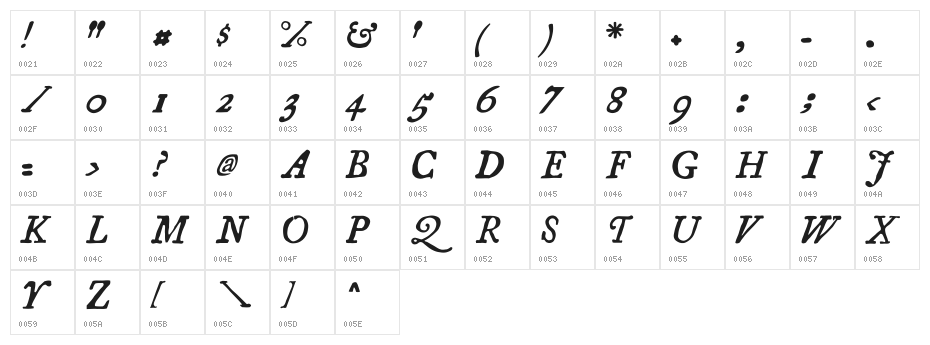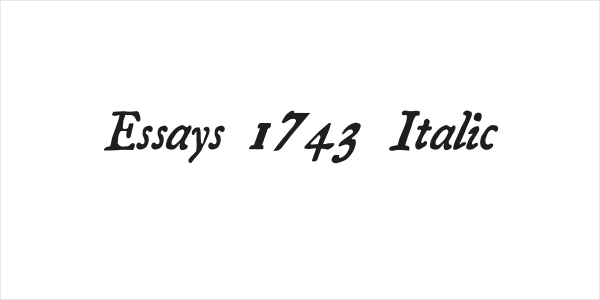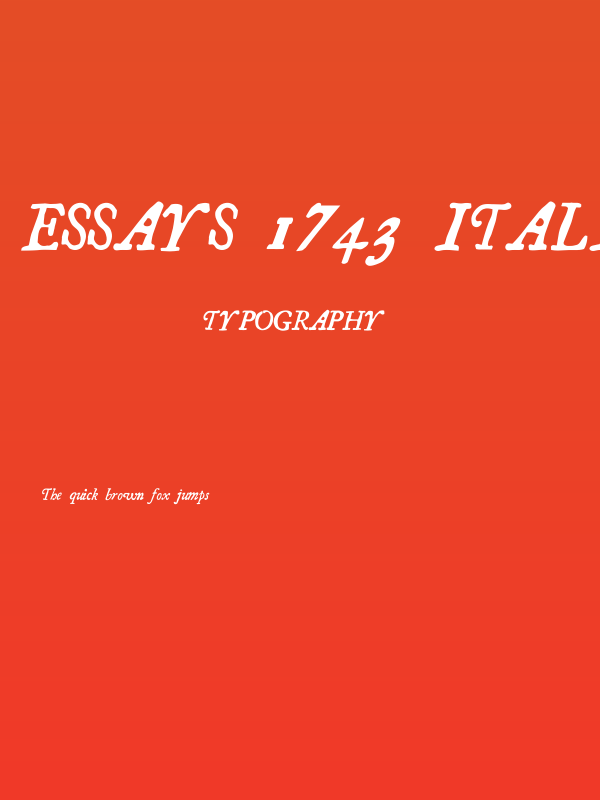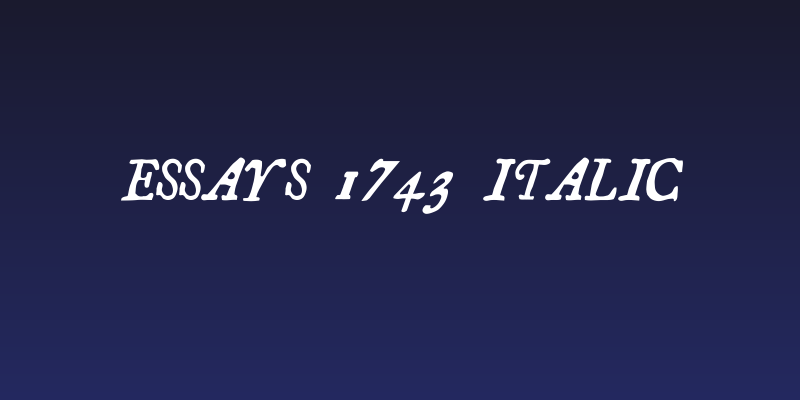
Essays 1743 Italic Font
Essays 1743 Italic Description
This font exhibits a classic and elegant italic style, characterized by its flowing and cursive letterforms. The uppercase letters are bold and slightly slanted, giving a sense of movement and sophistication. The lowercase letters maintain a consistent slant, with smooth curves and a harmonious flow. The numerals are distinct and easily readable, with a slight tilt that matches the overall italic theme. Special characters are well-integrated, maintaining the same stylistic features as the letters and numbers. The font's design is reminiscent of traditional calligraphy, making it suitable for formal and decorative purposes.
| Proposed Projects | Ideal for wedding invitations, formal documents, branding, and decorative headings. |